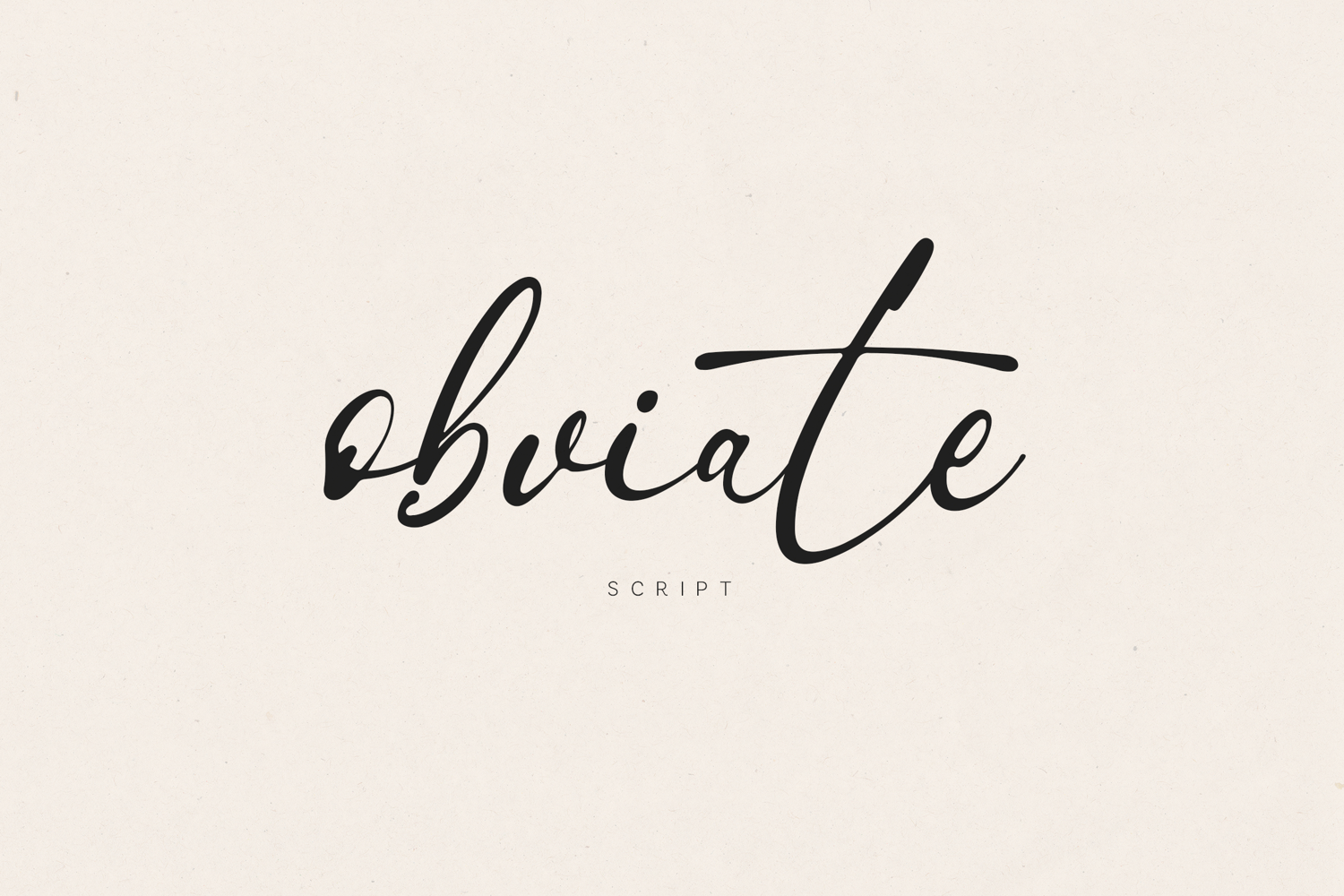
Obviate Script Font Modern Signature Handwritten
Obviate Script is a modern handwritten font crafted with smooth, natural strokes and a refined signature style. Designed to bring elegance and personality, this script font is perfect for branding, logo design, wedding invitations, social media, packaging, and stylish typography projects.
With its clean flow and contemporary look, Obviate delivers a versatile and professional aesthetic that works beautifully across both digital and print designs.
This font is ideal for designers, creatives, and brands looking to create a soft, premium, and modern visual identity.
• Logo & branding
• Wedding invitations
• Social media content
• Packaging design
• Signatures & watermarks
• Editorial & fashion typography
• Smooth handwritten style
• Clean and modern look